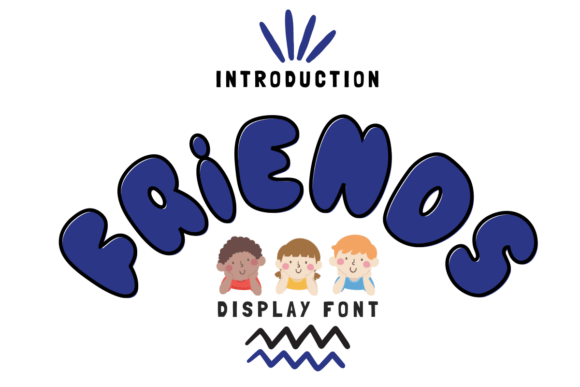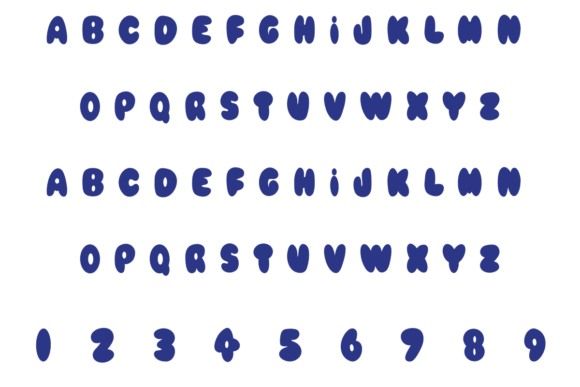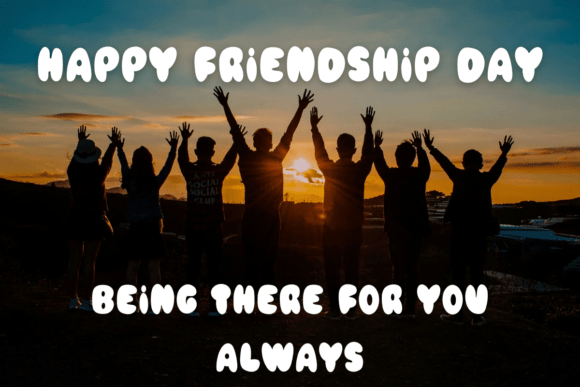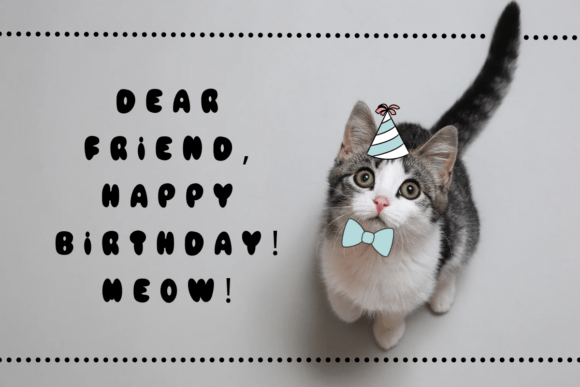
Friends Font
About the Friends Font
Experience the unique personality of Friends Font, a font designed for impact. Bursting with joy and friendliness, the Friends Font brings a youthful and bubbly energy to any project. Featuring chunky rounded letters and fun character, it’s perfect for children’s books, posters, cartoons, and any design that needs a lighthearted and approachable vibe.
Friends Font’s playful energy makes it ideal for children’s branding, playful logos, and short, impactful headlines. It also works well on packaging for products targeting a younger demographic or conveying a fun, approachable brand personality. However, its chunky forms and relatively large x-height make it less suitable for body text or UI elements requiring high readability at smaller sizes.
For a balanced aesthetic, consider pairing Friends Font with a clean sans-serif like Open Sans for body copy, or a more geometric sans-serif like Futura for a modern contrast. A playful script font could also complement its rounded forms, but choose one with a similar weight to avoid visual clash.
The overall personality is undeniably friendly and approachable, conveying a sense of youthful optimism and fun. Avoid using it for projects requiring sophistication or seriousness; its charm lies in its lightheartedness.
Friends Font Usage Examples
Friends Font Example